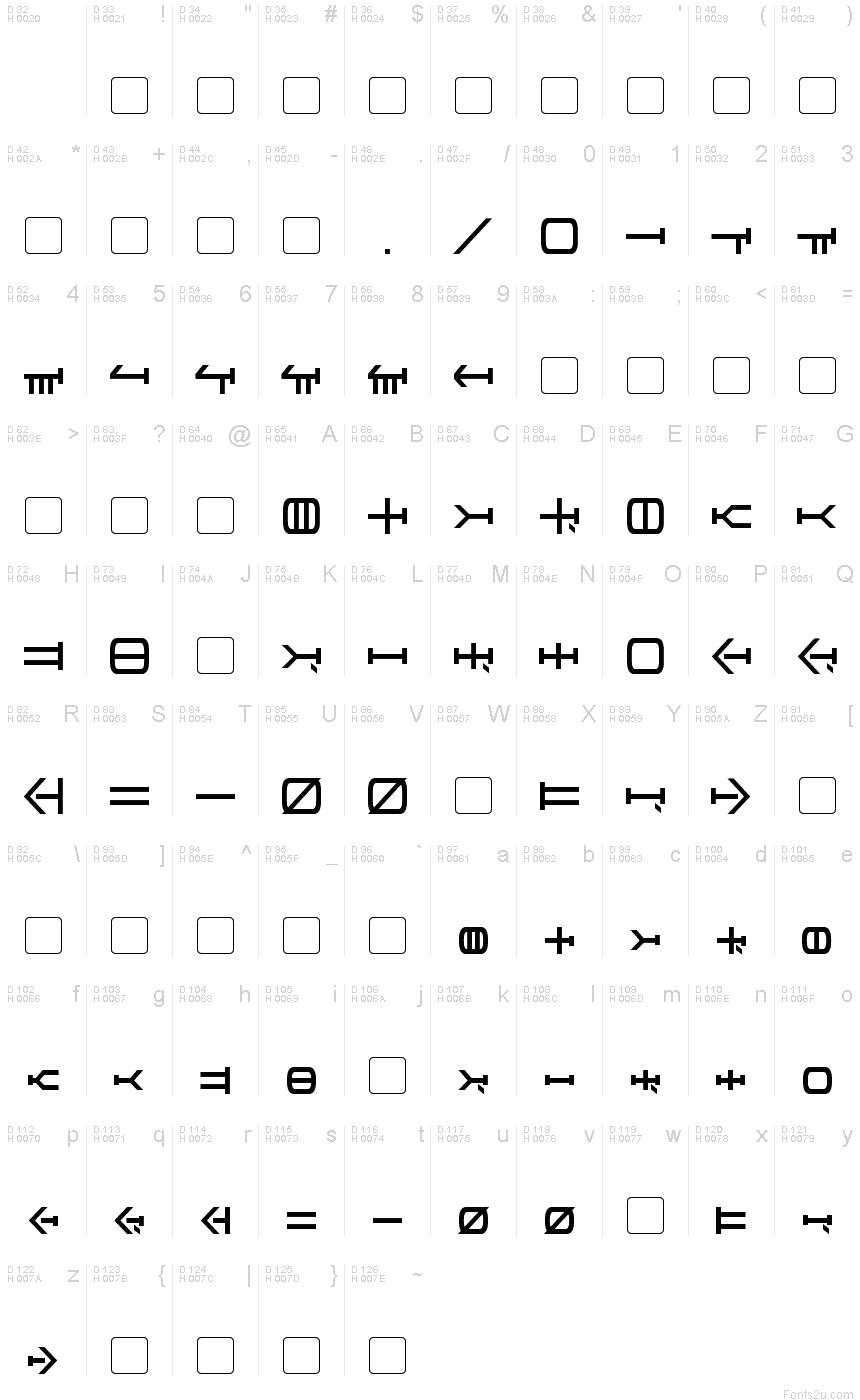
Graalen
Graalen is an alternative alien-language font for Star Treks Andorian race as found in the Last Unicorn Games version of the Star Trek role-playing game, slightly edited for greater internal consistency. Includes all canon glyphs, and is available in regular and italic styles.